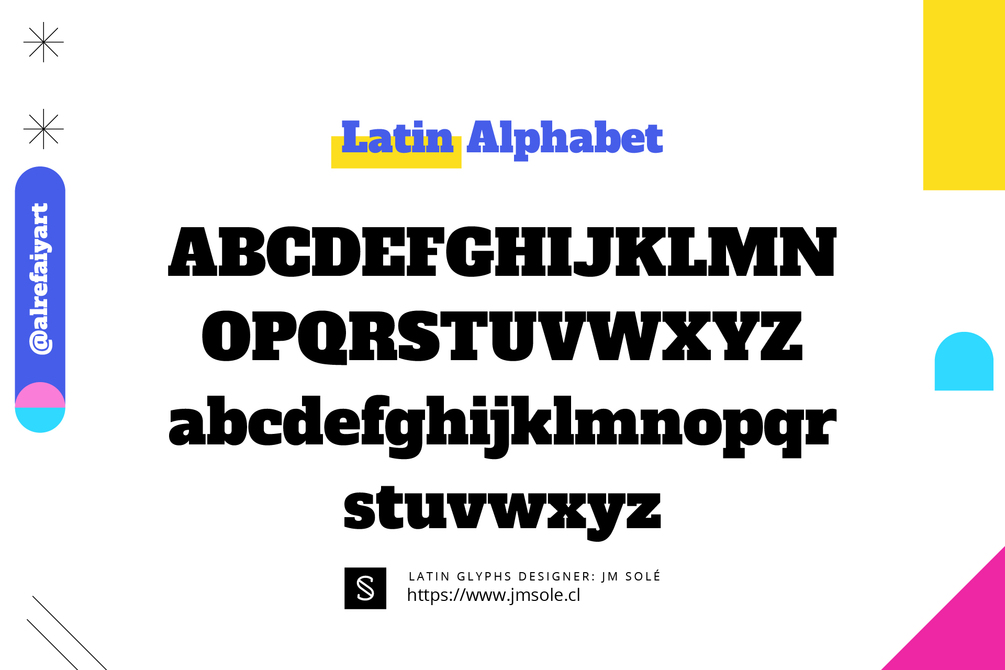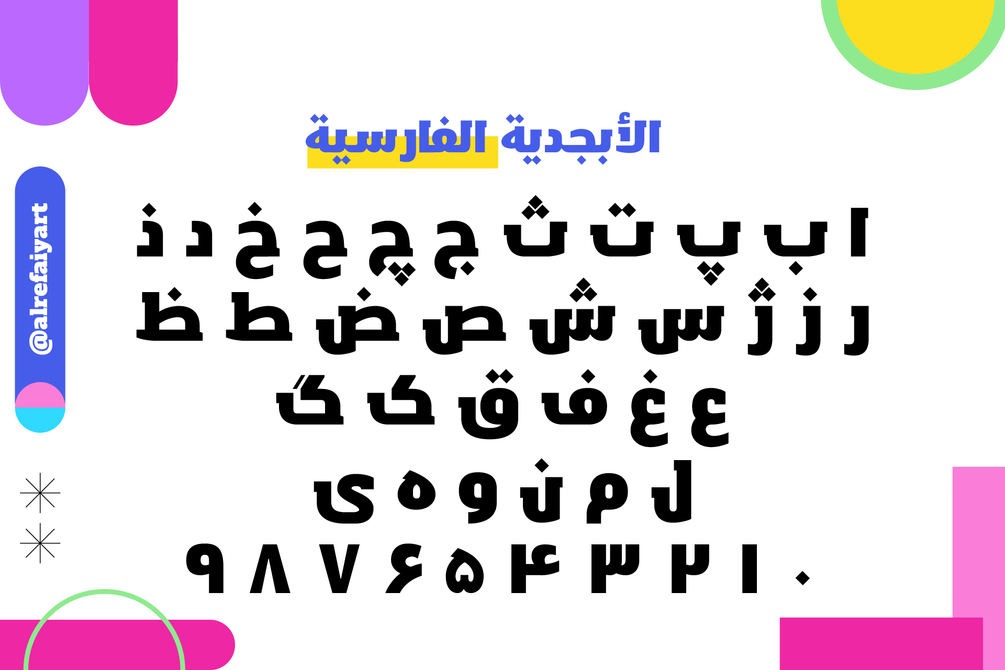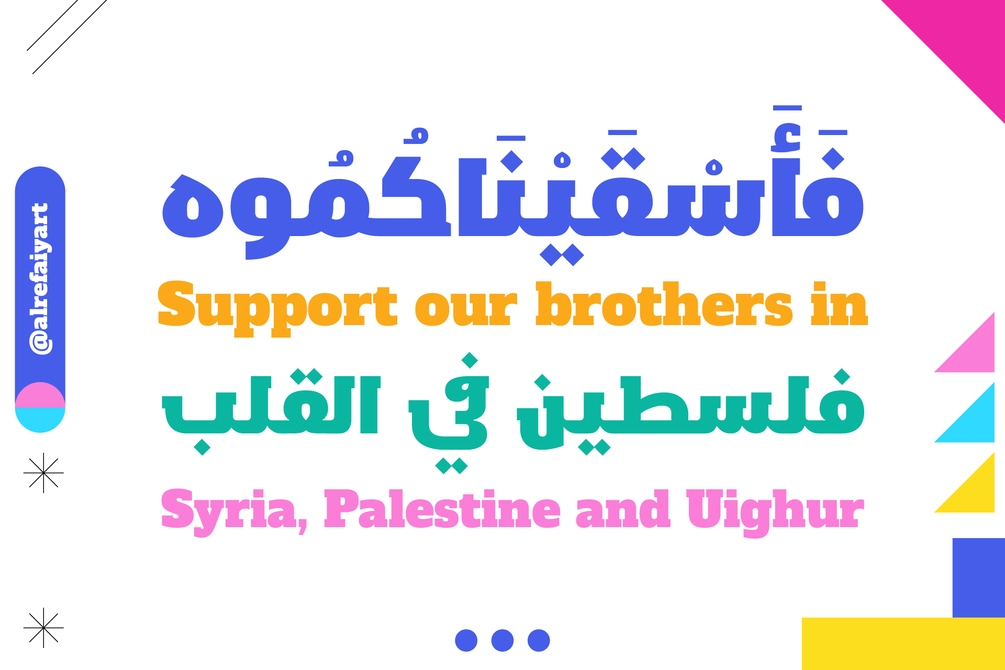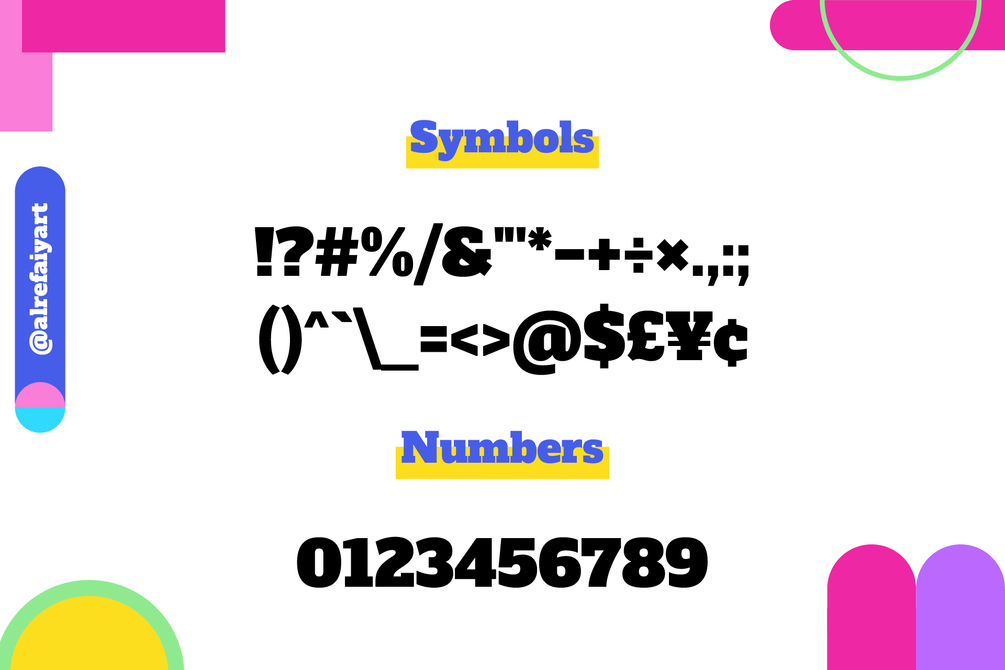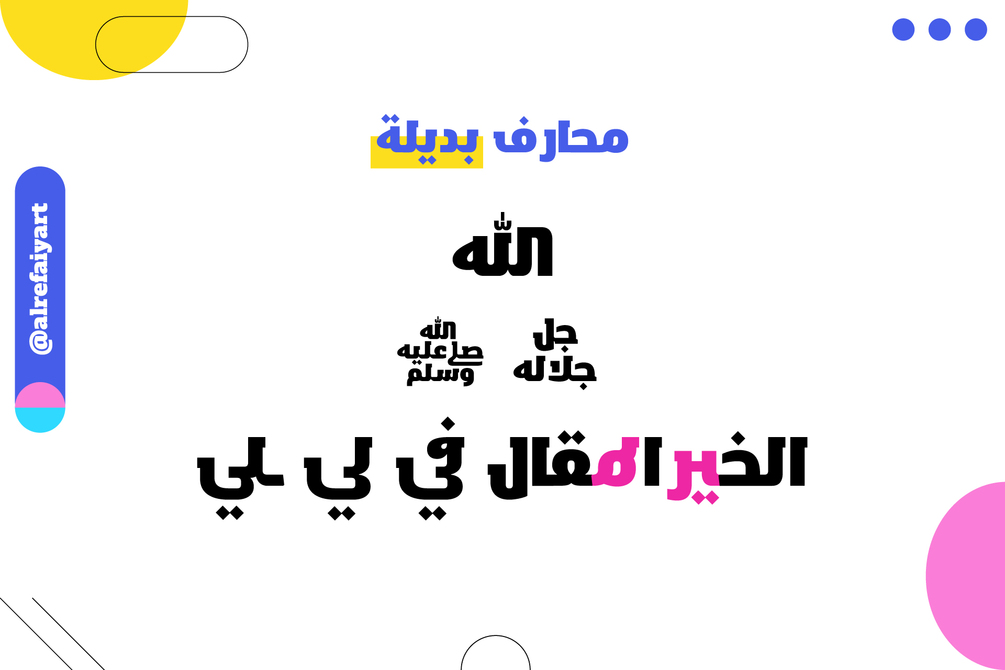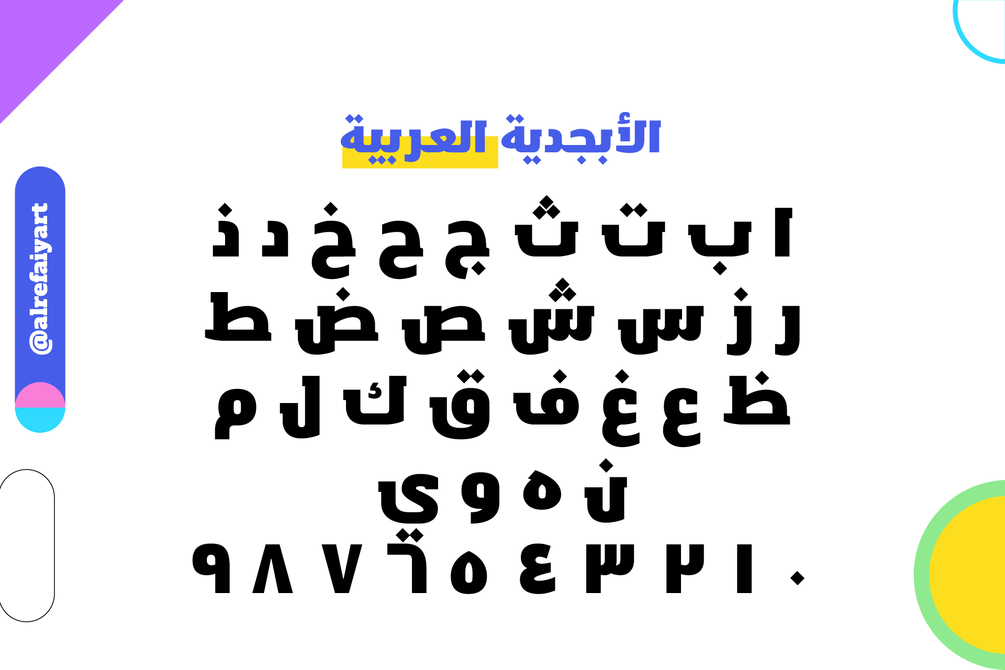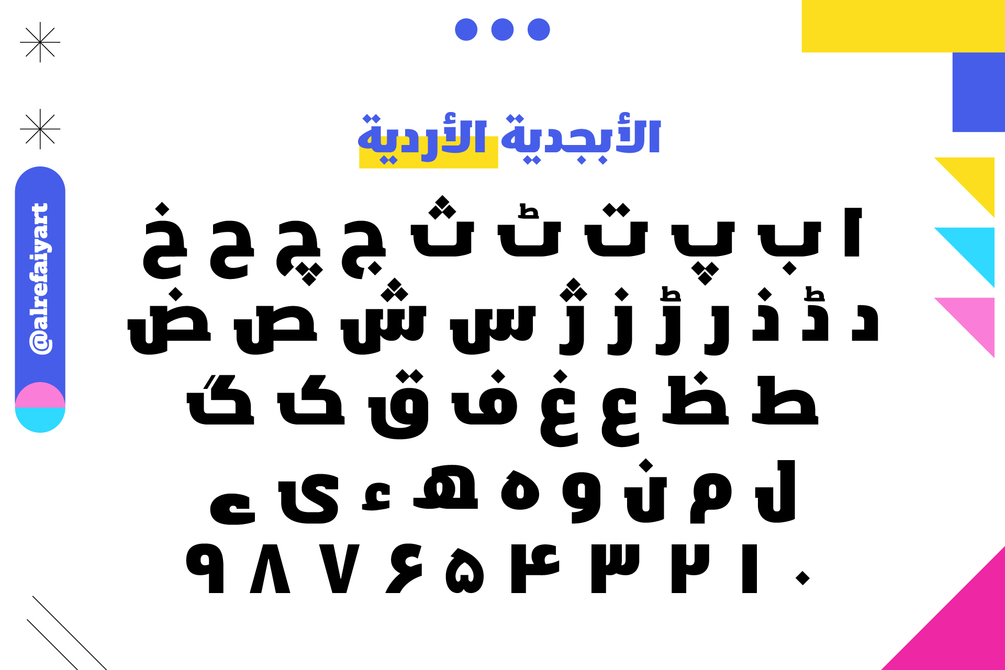
YR Basma Arabic Font
This font was designed with large serifs, bold stem weight, high stem contrast, and smooth terminals with a single block serif. It was created by Yusuf Refaiy and JM Sole.
It boasts an array of stylish and bold characters, including uppercase and lowercase letters, numbers, punctuation, alternate characters, symbols, modern icons, and various special characters, making it a comprehensive font package for diverse design projects.
With support for over hundreds of international languages and strong pairing capabilities, this typeface works well with YR Qaf Arabic, Chivo font, and Open Sans Font. It is ideal for headlines and titles, as well as for office use such as quotes, presentations, web headers and footers, reports, invoices, etc.
This versatile font is perfect for a wide range of designs including logos, posters, book covers, banners, home decor designs, business cards, invitations, templates, social media posts, ads, brochures, infographics, and packaging.